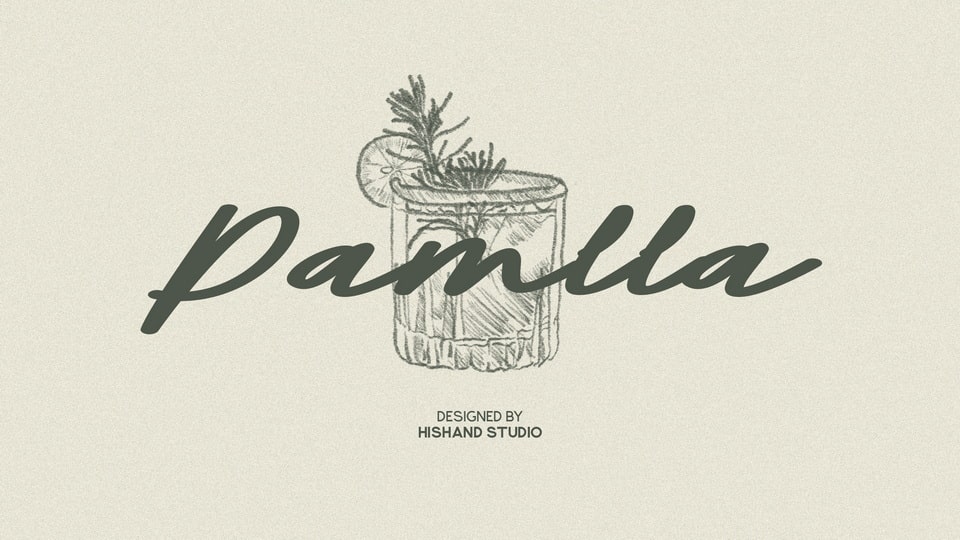
Download Pamlla font, a graceful script typeface that blends aesthetic charm with timeless elegance. Its flowing letterforms and delicate curves exude a refined, handcrafted feel.